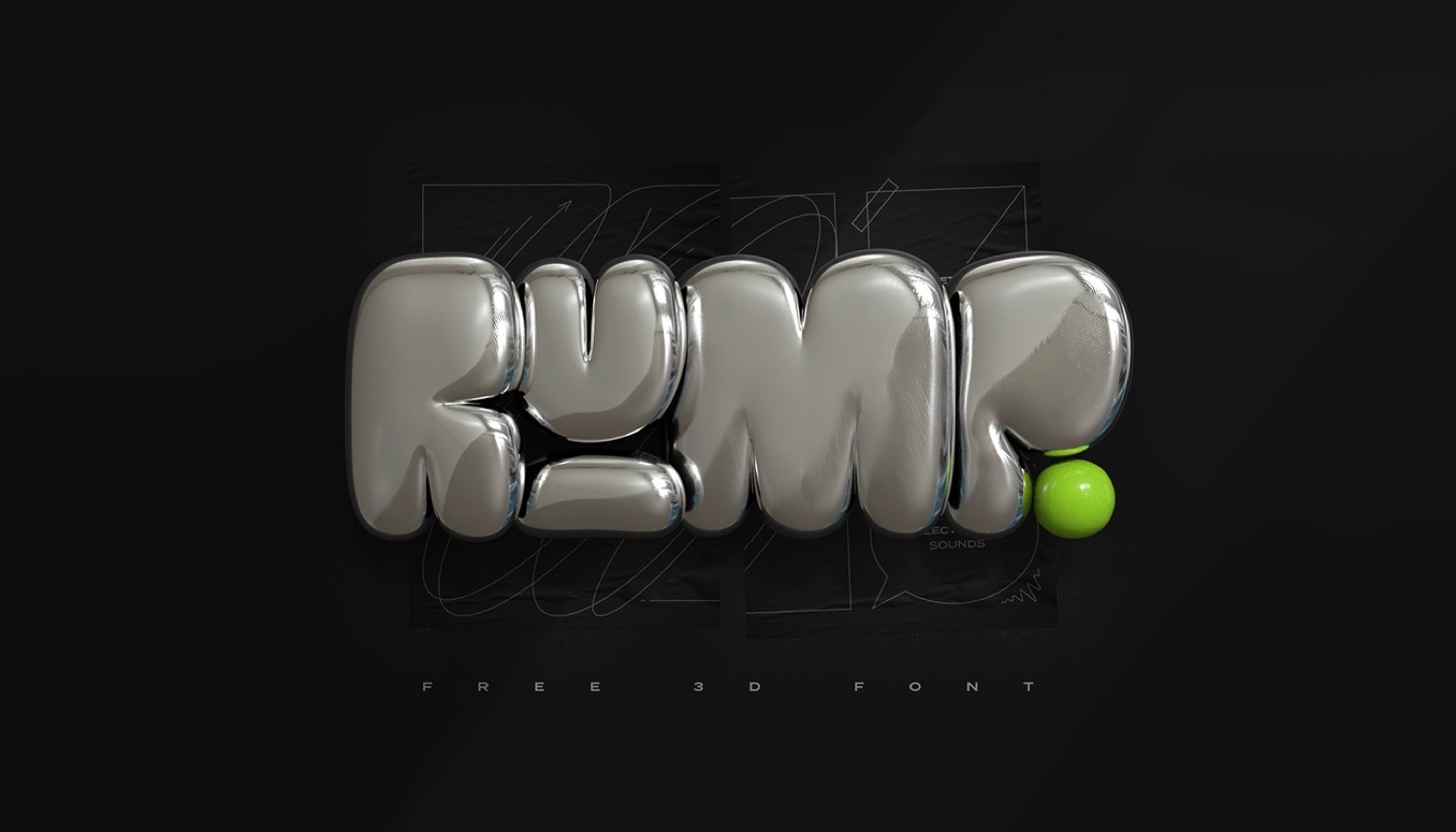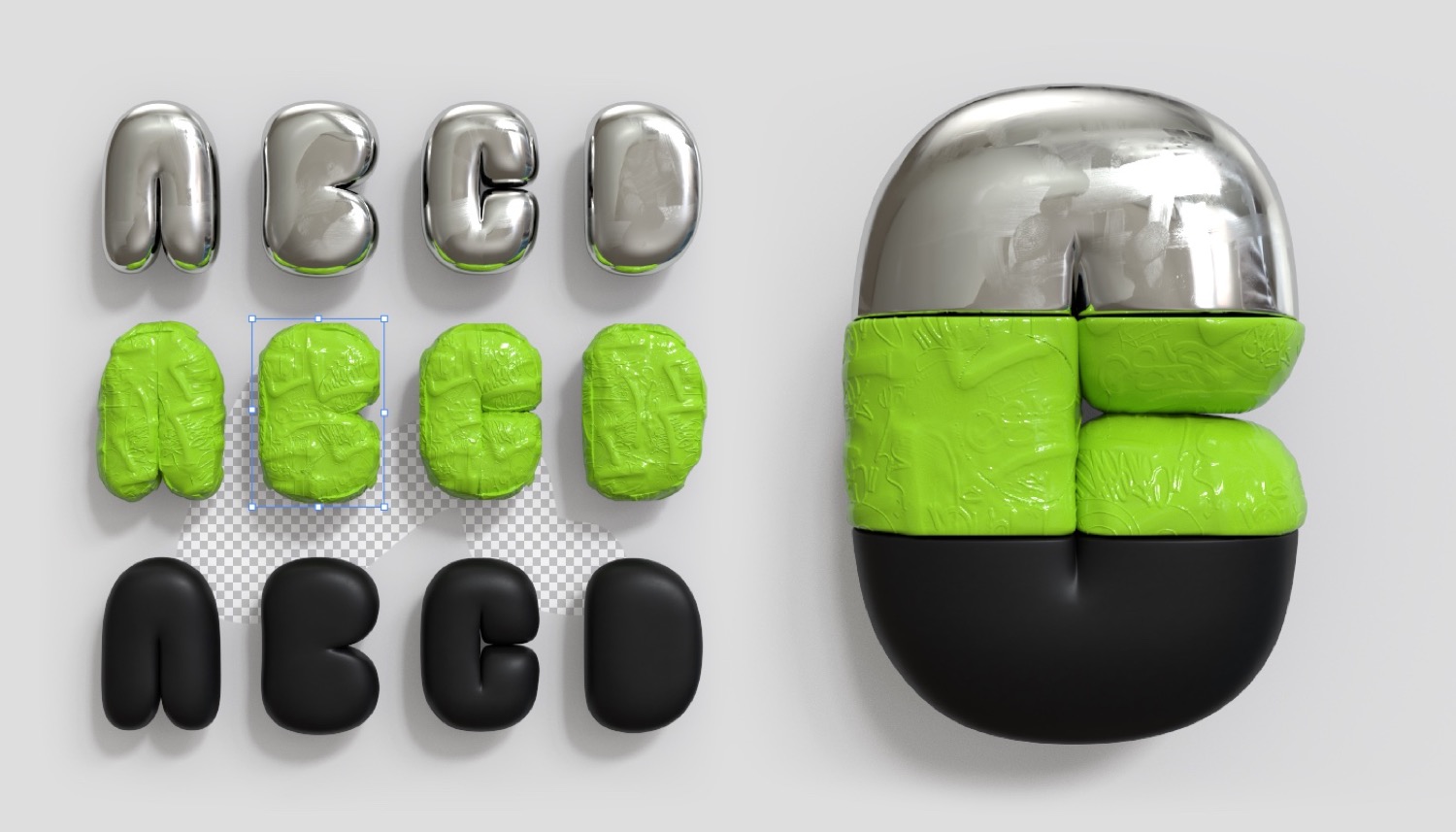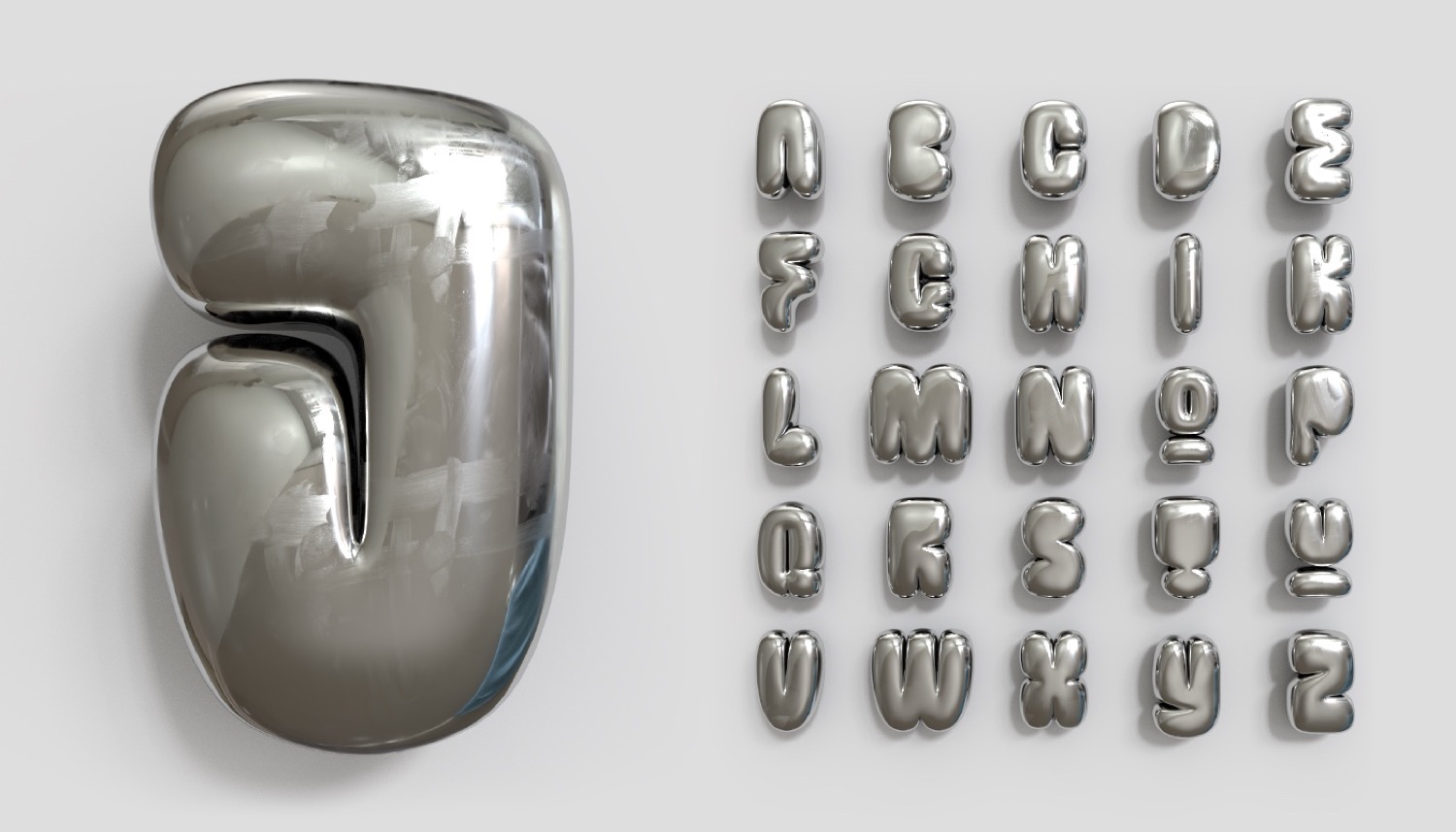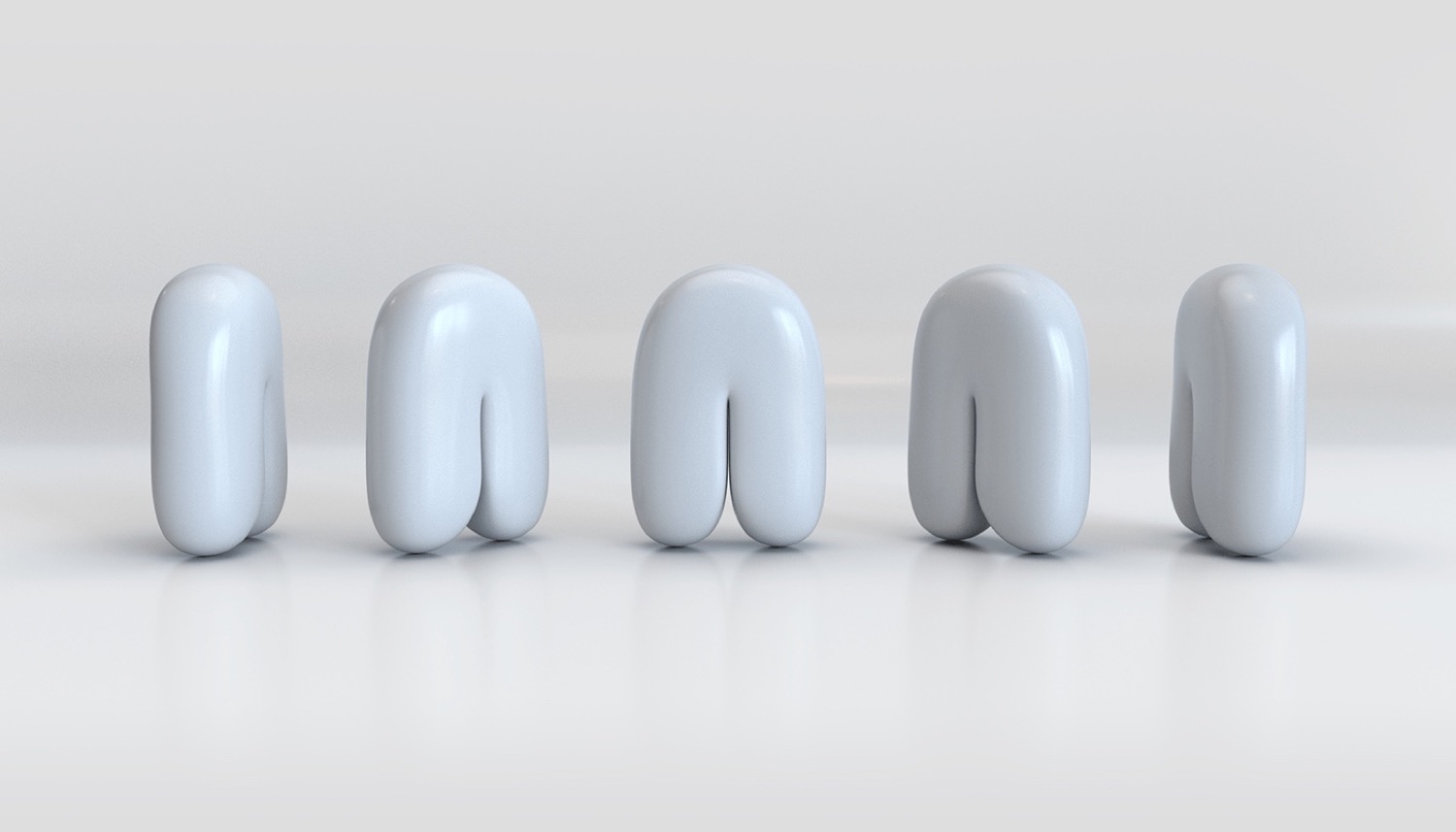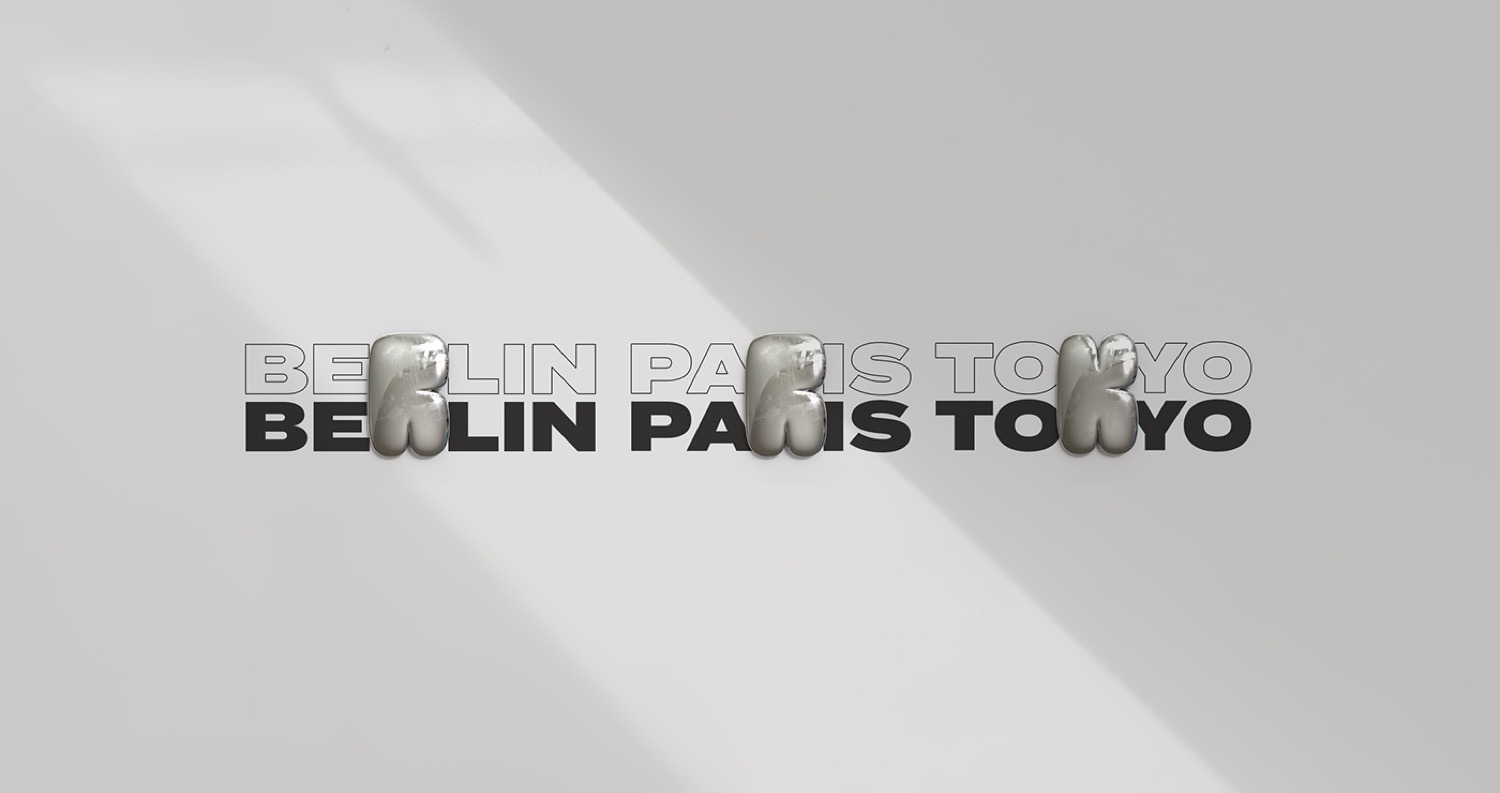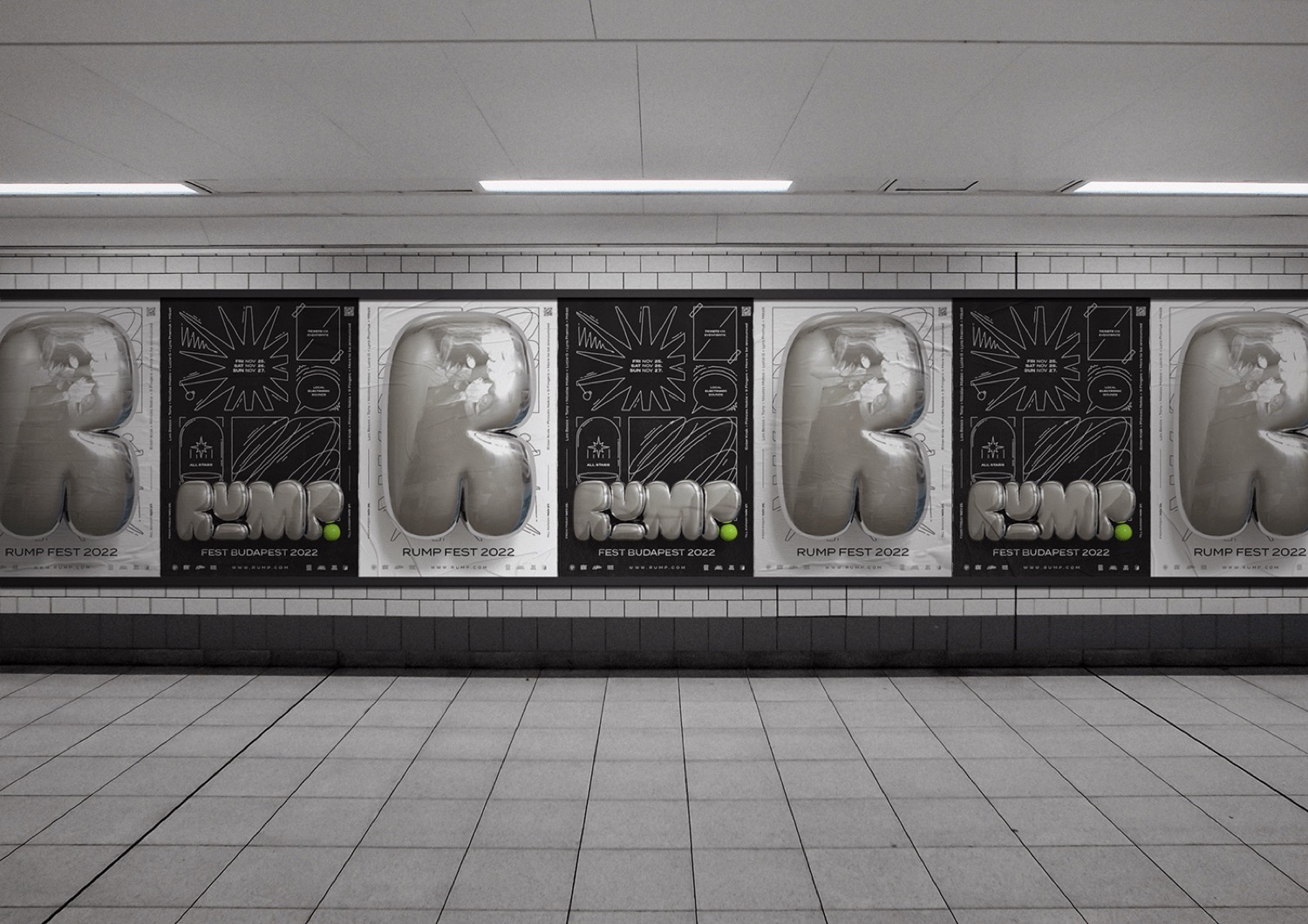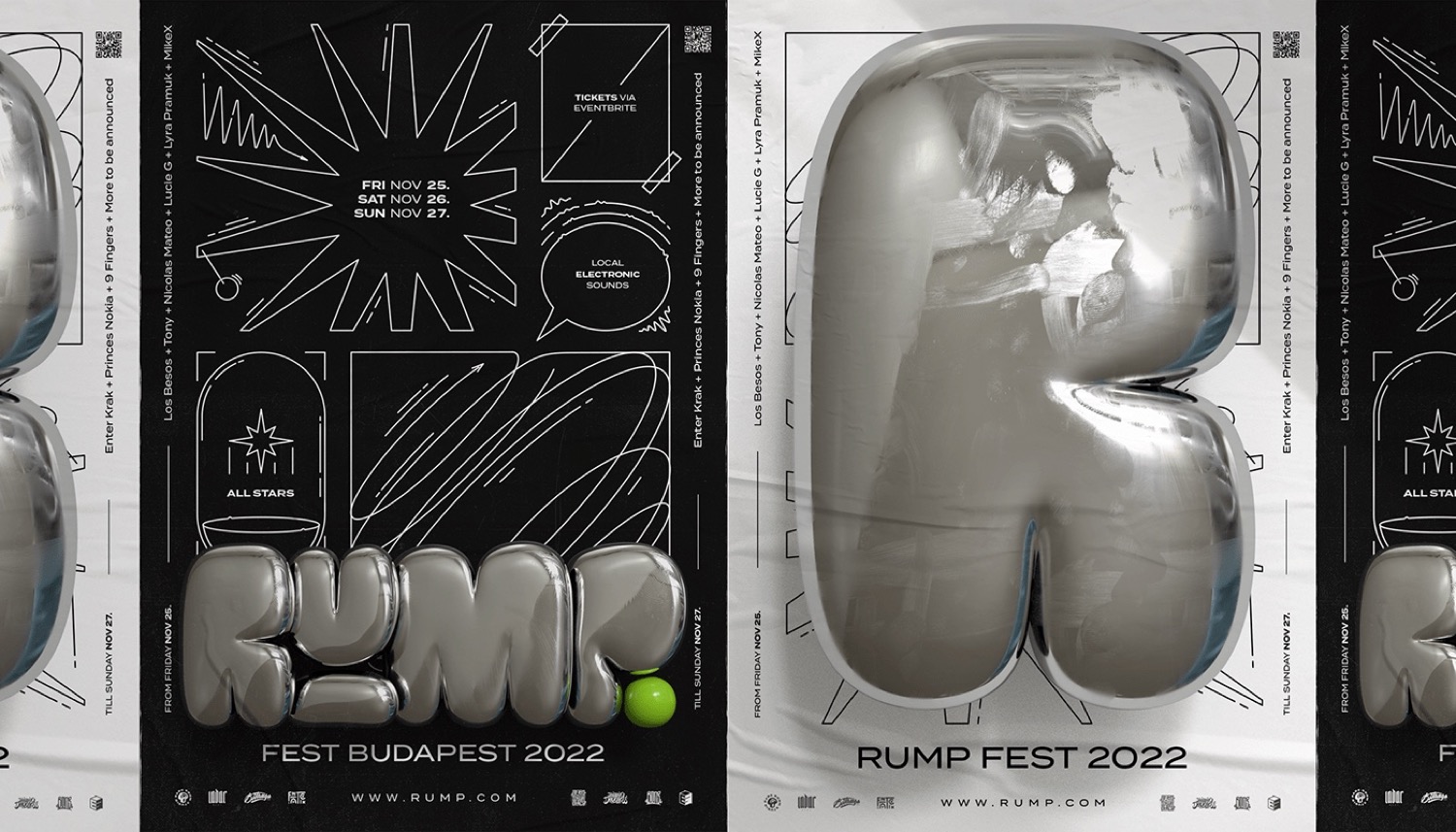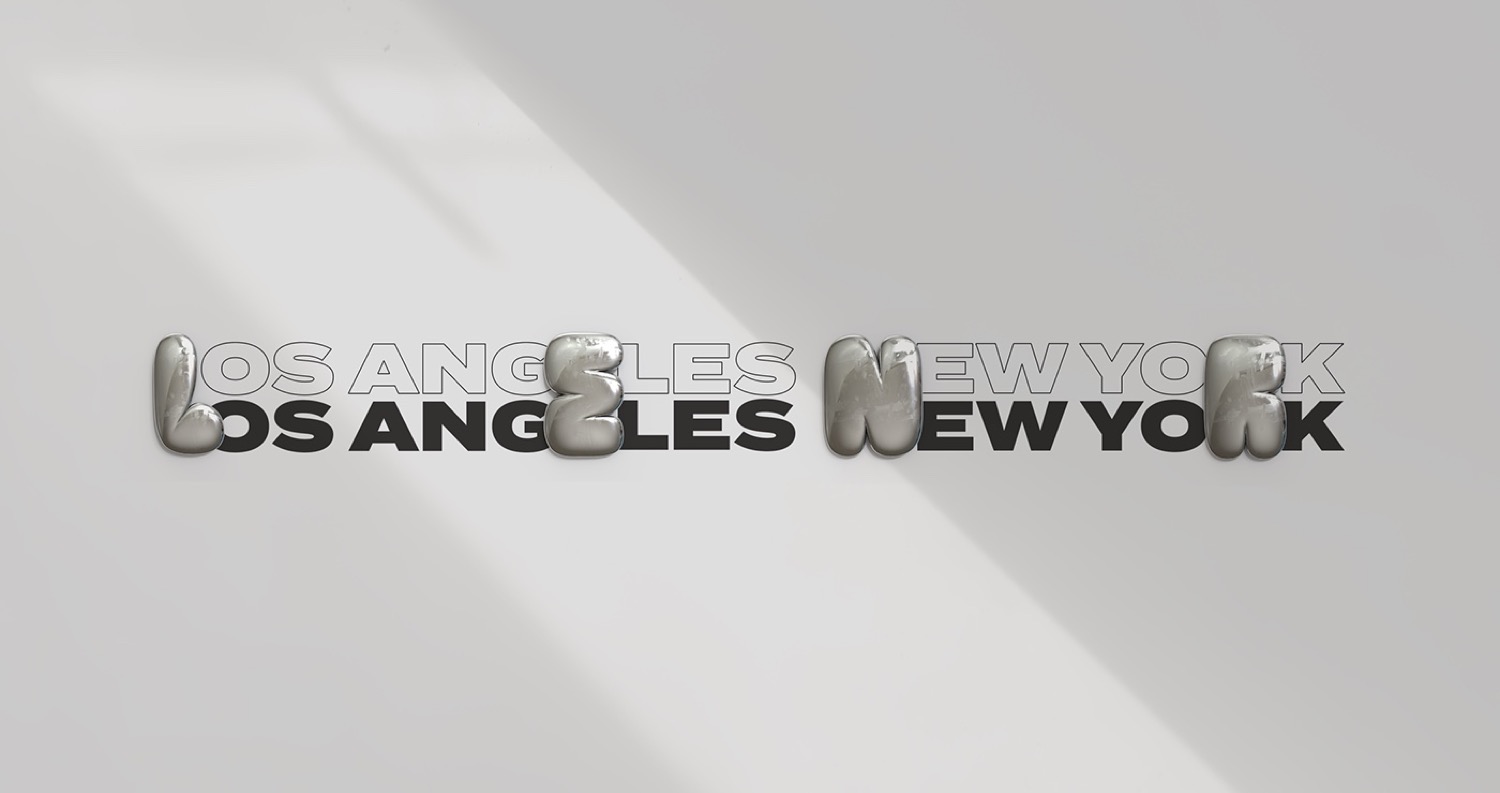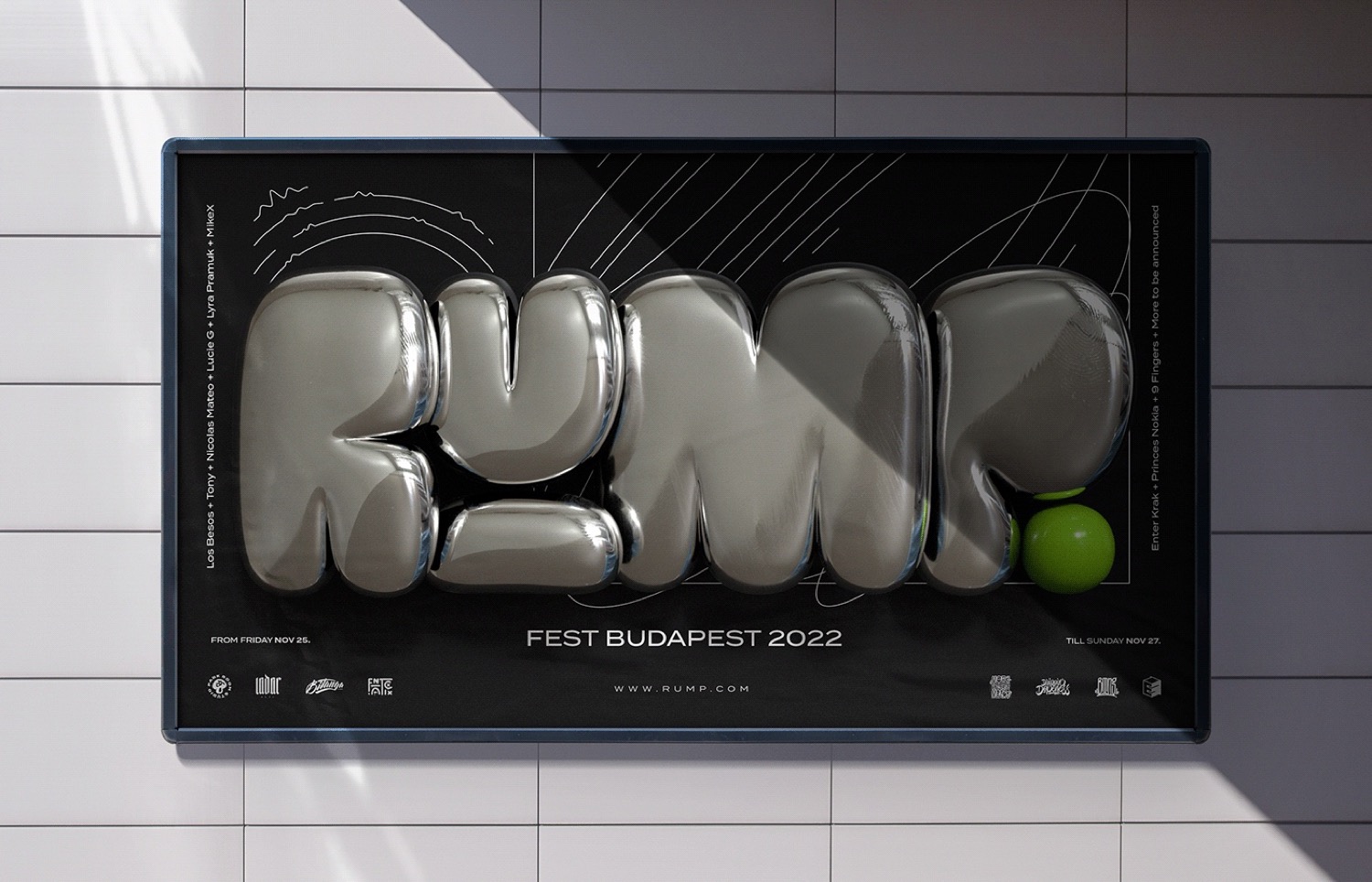
Petar Acanski entire idea started as a wish to participate in the 36 days of type. A couple of months before, he started learning 3D, so he thought a project like this could be a good practice. He wanted to make reusable letters, and this factor later became a decent challenge.
The entire style is inspired by a throw-up graffiti form. Simple but still effective. While he continued experimenting with hard surface modelling, he always learned something new. Again it opened a rabbit hole of perfectionism until it drained he a lot. To be sure the characters can work together he continued experimenting and combining them between them selfs as well as with other flat elements.